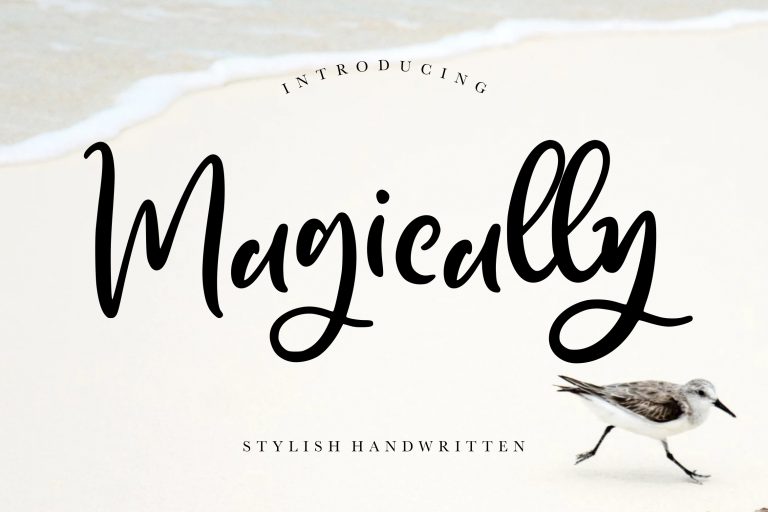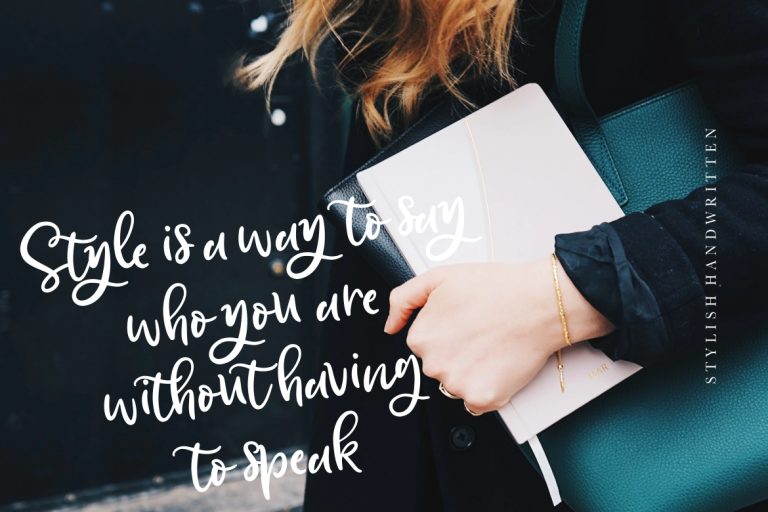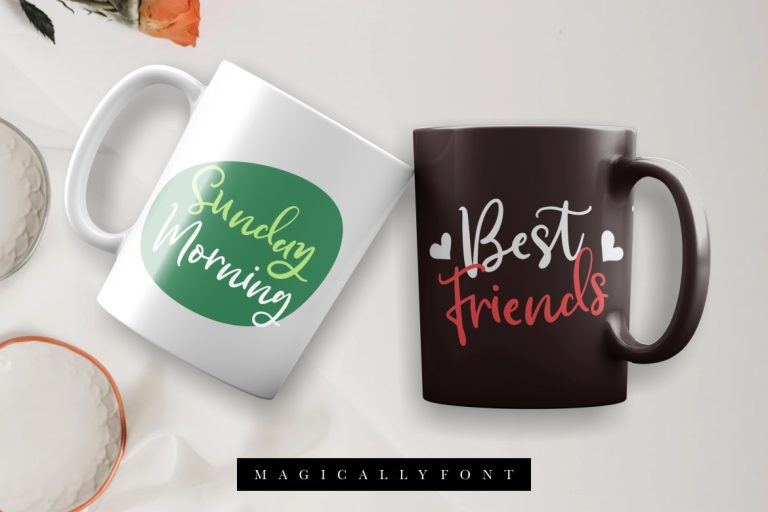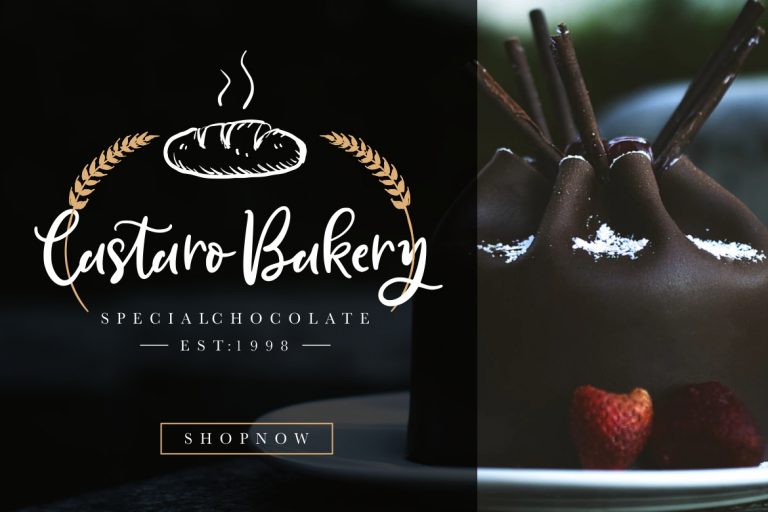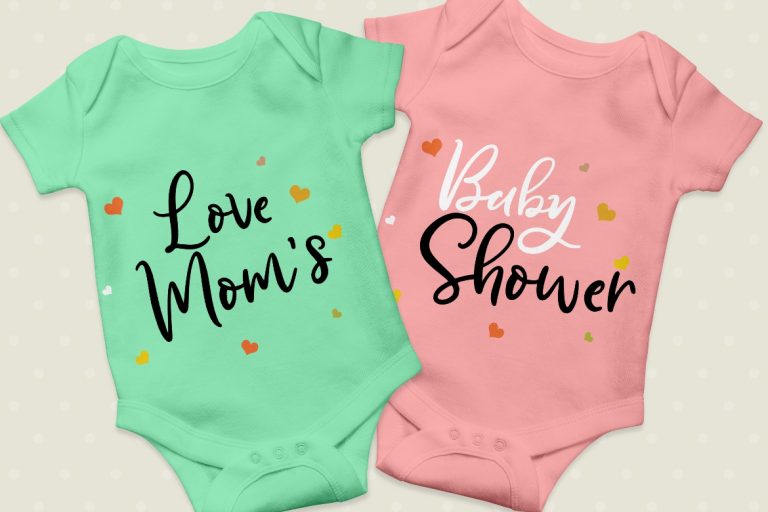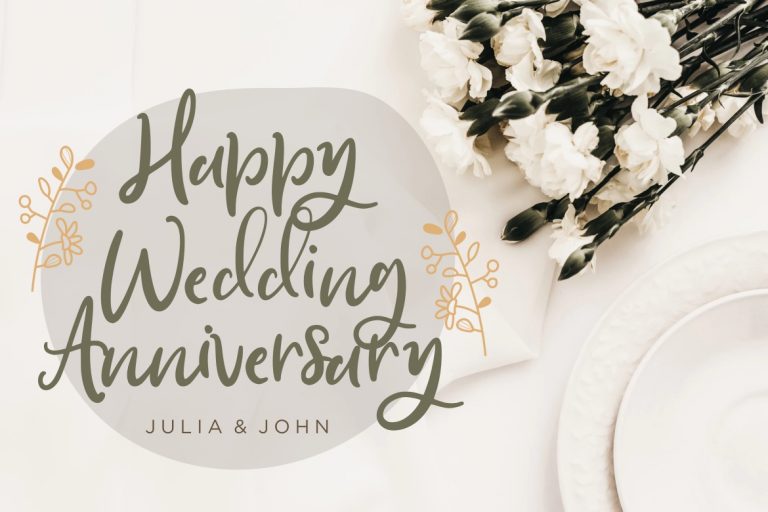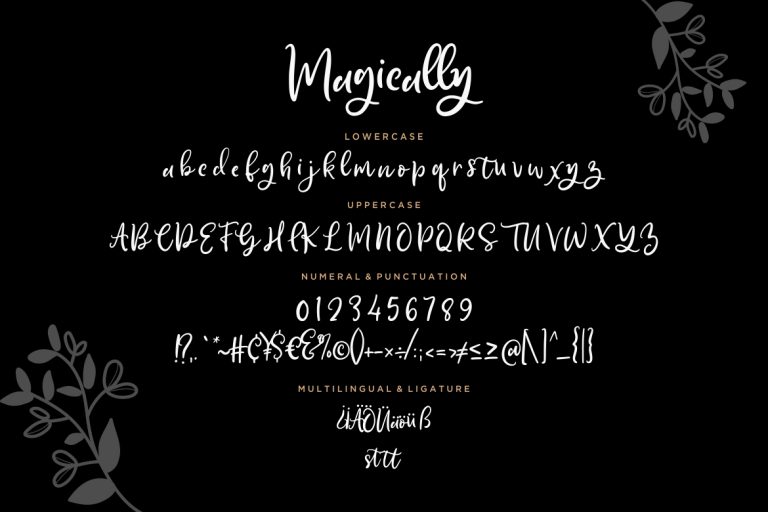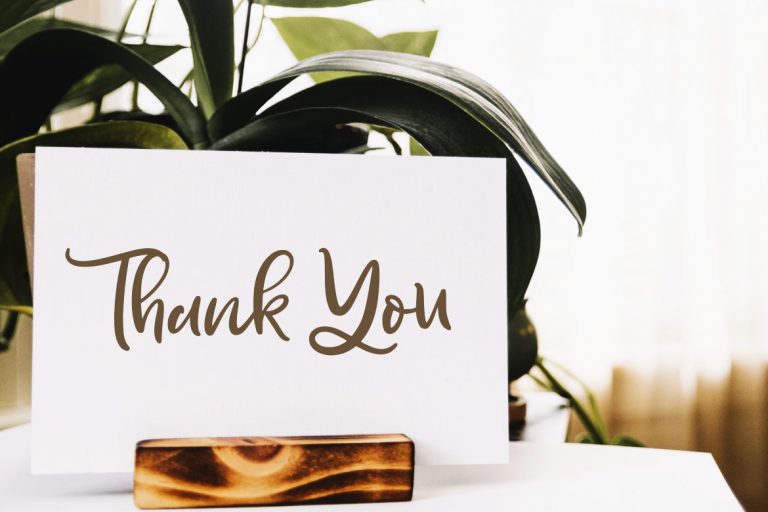
Magically Stylish Handwritten
Magically is stylish handwritten font with elegant signature style.
Magically is perfect for branding projects, logo, wedding designs, social media posts, advertisements, product packaging, product designs, label, photography, watermark, invitation, stationery and any projects that need handwriting taste.
- Fonts include multilingual support for; ä ö ü Ä Ö Ü ß ¿ ¡